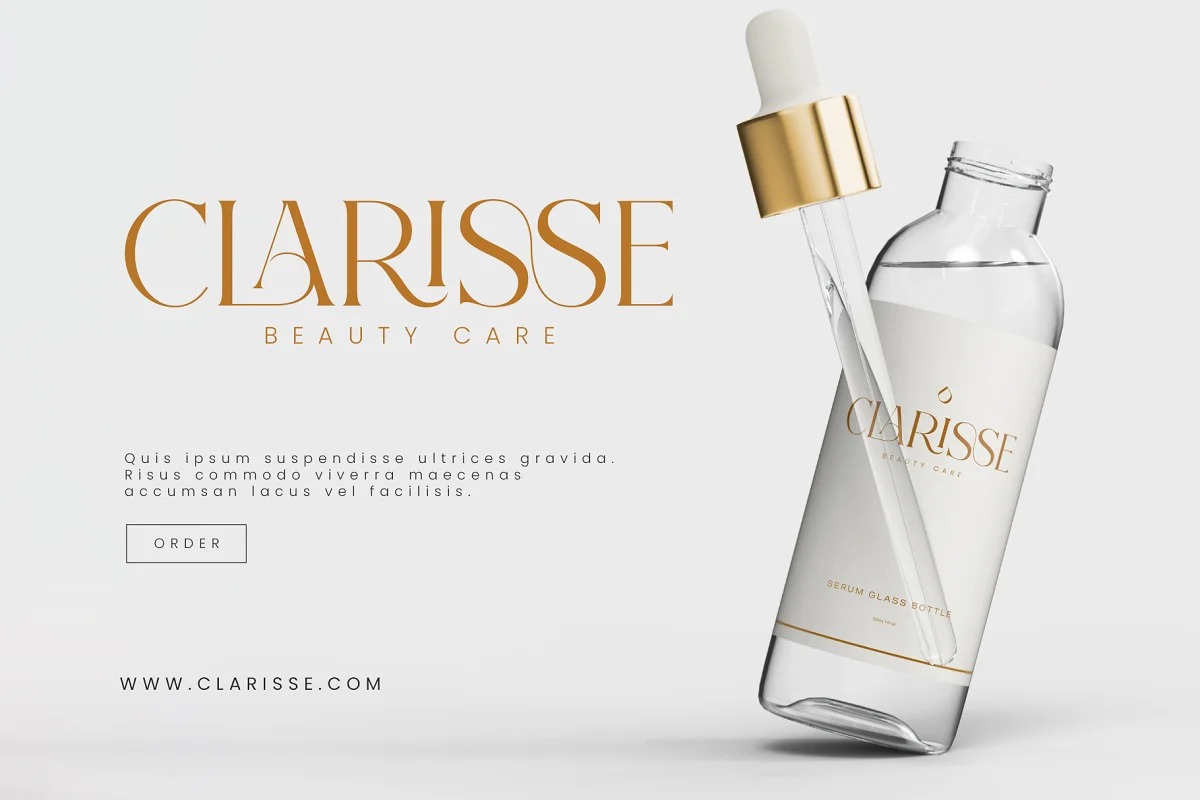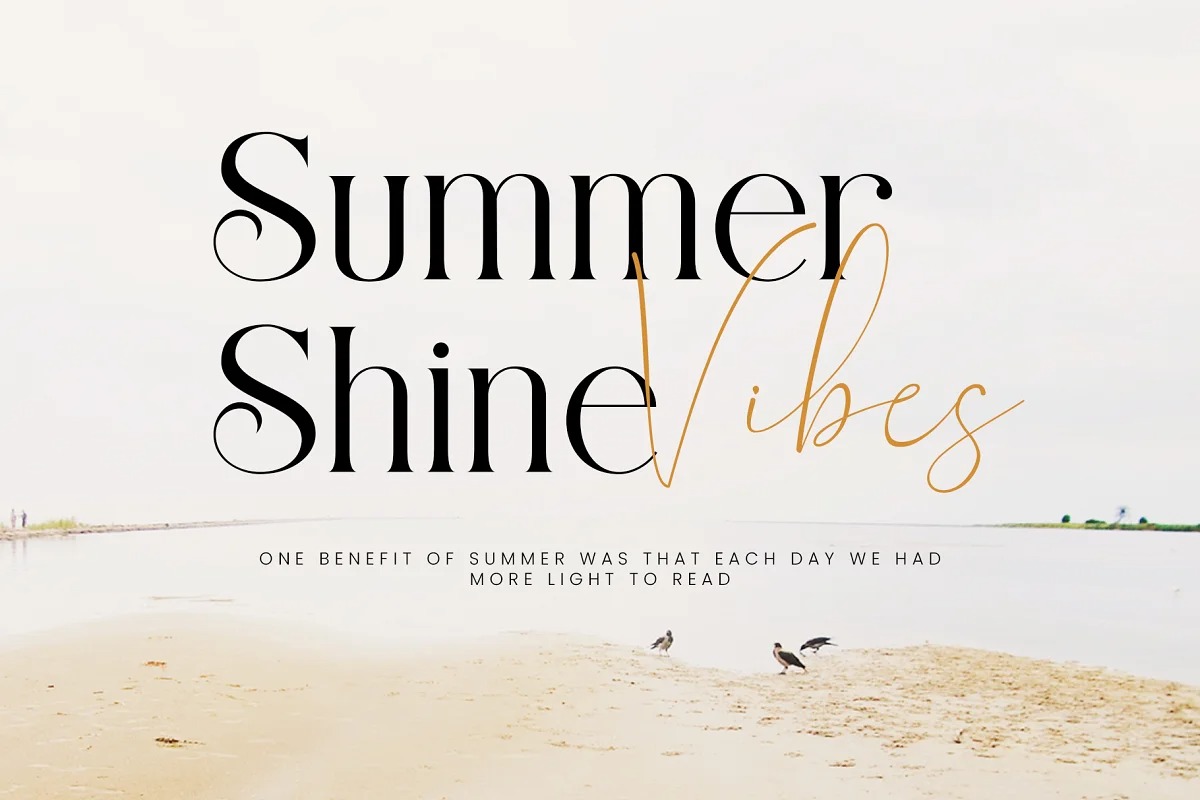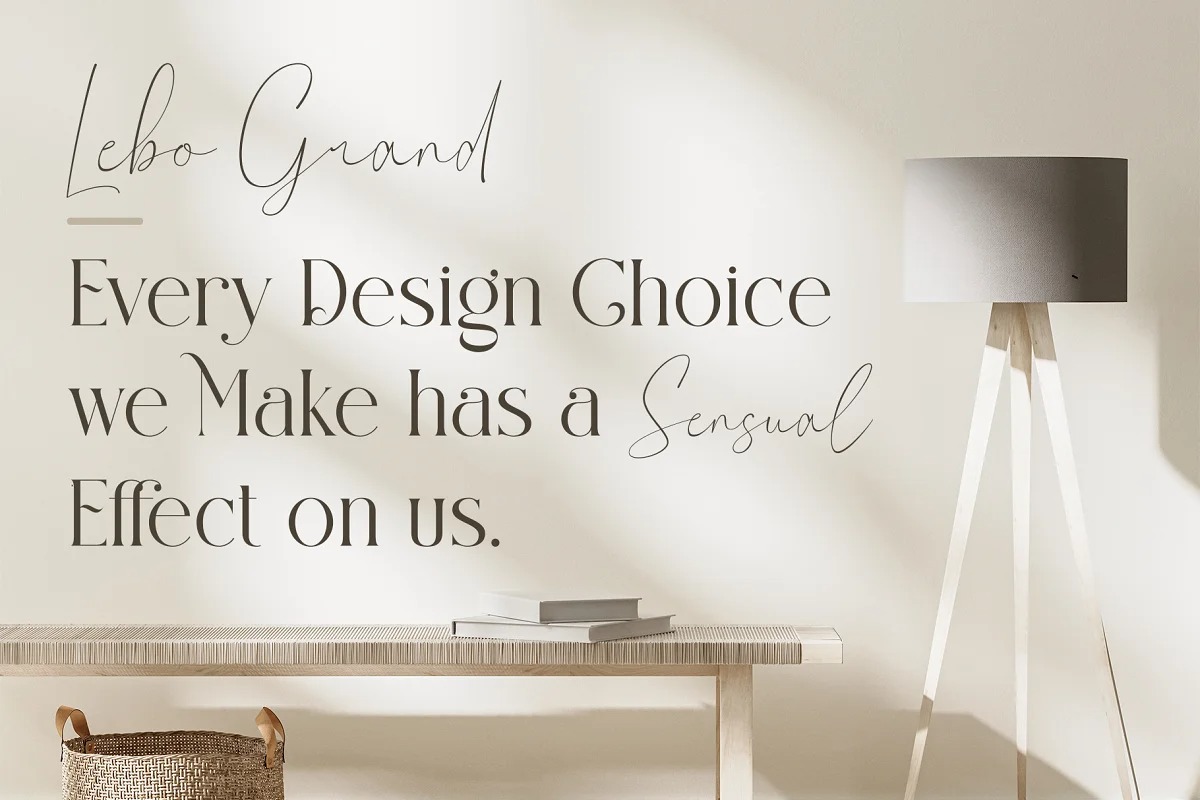
Claster Oleander Font is a great paired font duo because it has organic characteristics and is luxurious to look at. With a modern look, Claster Oleander brings classy and luxurious style to your website, modern logos, brand identity, social media quotes, wedding stationery and anything you want to get the perfect result for your project!